In this list, you will find best free hipster fonts, perfectly matching your designing needs.
No one can deny the importance of typography in design. Choosing suitable fonts is the hardest part of any graphic design. Using suitable fonts, one can deliver his message in a more convenient way. No matter what you are doing, whether you are creating a gig poster or designing an album cover for hipsters, a font have the ability to make or break your point. Internet is full of free fonts and many of them are of low-quality that you would never ever use for your professional design. Keeping in view the importance of fonts for our designers, we have gathered a list of 40 free fonts for hipsters.
Hipster Font: Hand Drawn
Airplane
Airplane was inspired by the famous jet era of the 60’s.
Locksmith Display
Geared
Geared is an industrial inspired Condensed Slab Serif in 4 weights (Thin, Regular, Bold, Extrabold). With an extensive character set, Geared could be a versatile addition to your next project.
Che’s Bone
Coolvetica
Coolvetica is a scratch built, sans serif font, based on an American chain store logos circa 1970. This was an era where everyone was modifying Helvetica. Not only for logo designs but even font designers were at it. The Photo Lettering Inc. catalog was loaded with playful helvariations.
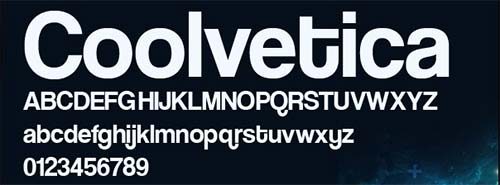
Hipster Font: Cylburn
Cylburn is a semi-connected script structurally based on Roundhand but written with a pointed brush and restrained tension that separate it from its traditional roots.
Duke
Based on the signage for the Cup and Saucer Luncheonette in New York, Duke features three layers: Fill, Shadow, and Fill+Shadow.
Combustion
Combustion family consisting of 5 fonts.
Before Breakfeast
Apart from the hand drawn look, it was drawn right out of my head, its nothing like my own handwriting I just thought I would add a few slab bits to make it look more interesting.
Silverfake
Silverfake is a new contemporary slab serif wide free font designed Alexey Frolov a.k.a MRfrukta. He brings us some unique “old style” feeling which is presented in contemporary curves that make the font applicable for both – retro and modern designs.
Bebas Neue: Free Hipster Font
Bebas Neue is new and improved version of Bebas originally released in 2005.
Haymaker
A display typeface that’s both rugged and refined. Inspired by the workmanship, lettering, and baseball jerseys of the 1930’s and 40’s.
Sullivan
Not your traditional modular typeface. Sullivan is a bold display face that comes in three variations. Each can be used effectively on their own or layered for a uniquely modern, industrial effect.
Salt & Foam
Salt and Foam is a unicase font family that represents an incredibly strong and gracious sport and the spectacular enviroment that it would not exist without.
RBNo2 Hipster Font
Yuma
Blanch
Fat Frank
Rex
Fairview
Fairview is a condensed sans serif, with small cap alternates, inspired by the industrial lettering of the 20th century.
Aldine
Created from original proofs of a 19th Century American Wood Type alphabet, Aldine Expanded was created and embellished by Javier Viramontes at the University of Texas, Austin.
Fabrica
Fabrica is a deceptively simple sans serif typeface optimized for screen display on handheld devices. With its optimal quality and legibility, Fabrica proves to be highly efficient for small screens. Its details are drawn from the more systematic constructed Neo-Grotesques, giving it a neutral tone of voice. Above all, Fabrica’s beauty is found in its functionality.
CODE
Code Pro is a font family inspired by the original Sans Serif fonts like Avant Garde or Futura, but with a modern twist. It is clean, elegant and straight-to-the-point. Code font is applicable for any type of graphic design—web, print, motion graphics, etc.—and perfect for t-shirts and other items like posters and logos.
Mission Script
The first of the Mission Collection, Mission Script is a signage-lovers wet dream. Condensed, casual, sweet, and sincere. A celebration of the brush. Scripts rule.
Muncie
The font that kicked this whole thing off, originally designed in 24 hours, and now back (new and improved).
Offering
Offering has 5 version of the font. Regular, Regular Rounded, Bold, Bold Inline and Bold Inline Alternate.
Lobster
Franchise
FRANCHISE is a powerful new display typeface meant to communicate your message quickly and with power. The characters were meticulously drawn to achieve a uniformity without compromising style. Franchise is just as much at home on the front of a doughnut shoppe as it is on the scoreboard at a football stadium.
Infinity
Infinity free font was created from the simplicity of lines and curves with round corner and cap. The font is applicable for any type of graphic design – print, web, motion graphics, etc.
Inner City
Chunk
Chunk is an ultra-bold slab serif typeface that is reminiscent of old American Western woodcuts, broadsides, and newspaper headlines. Used mainly for display, the fat block lettering is unreserved yet refined for contemporary use.
Intro
What distinguishes the new Intro free font from FontFabric is the strongly expressed geometric makeup and structure.
The basic letters of the Alphabet like “A”, “O” and “H” are built or based on principles of simple geometric forms – triangles, circles and squares.
Moonshiner